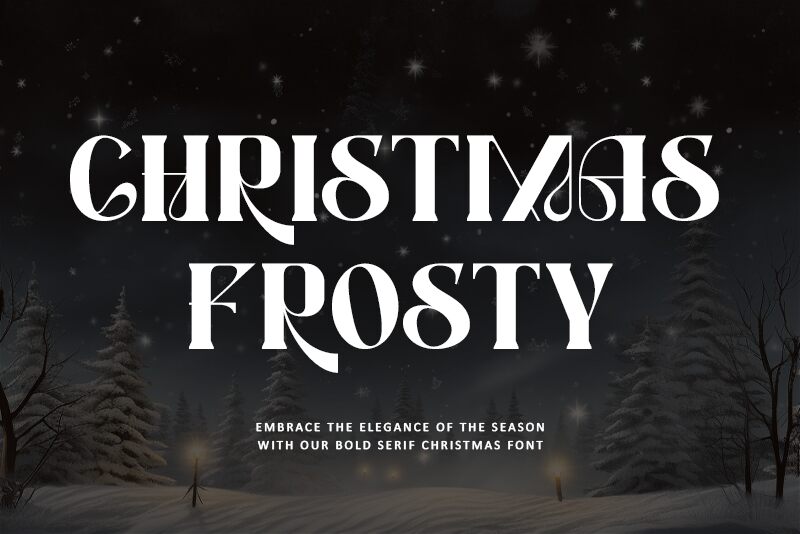
Christmas Frosty font by Letterara is a free holiday-themed typeface that captures the classic elegance and festive spirit of the season. With its decorative elements and artistic flair, this font brings a modern touch to ornamental design. Visually striking, it effectively conveys the holiday spirit while maintaining a sophisticated look, making it an excellent choice for contemporary applications.
The font shines in a variety of uses, from seasonal branding and marketing materials to holiday cards, festive invitations, banners, storefront displays, and posters. It’s also suitable for digital applications such as social media graphics, websites, and email campaigns.